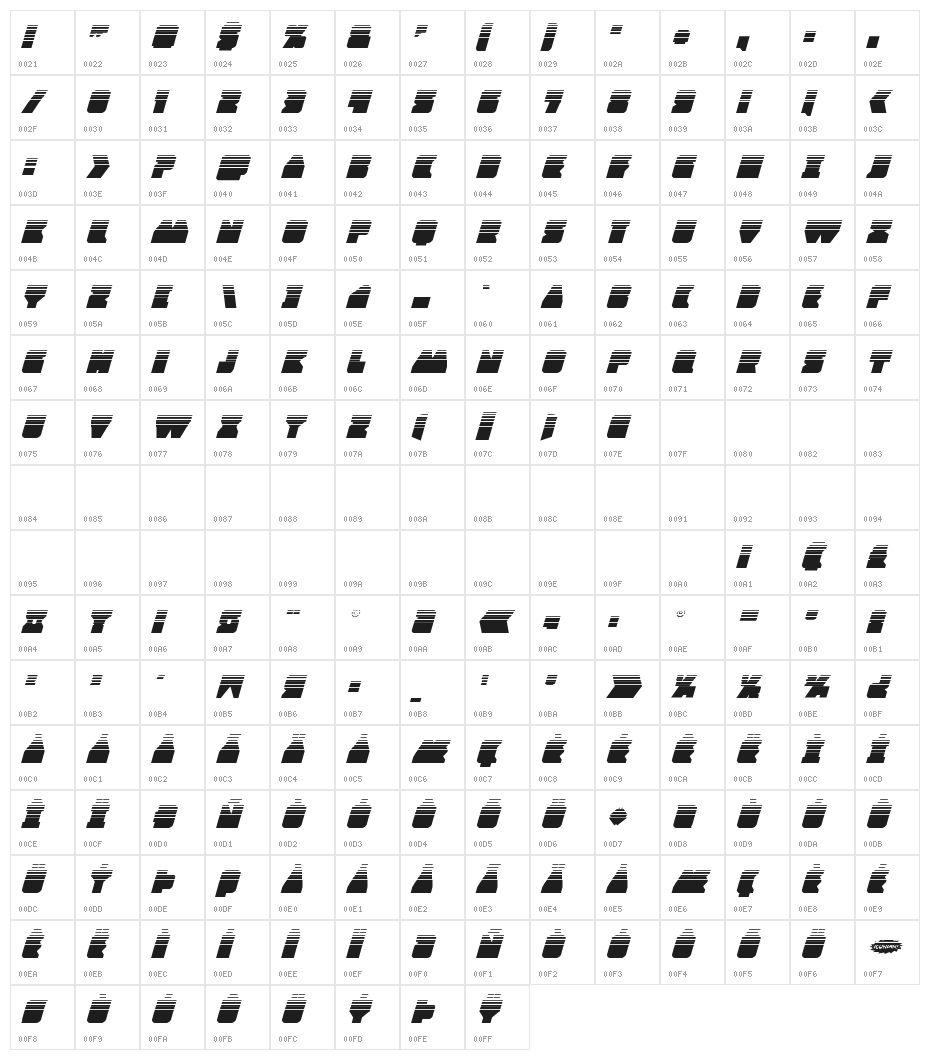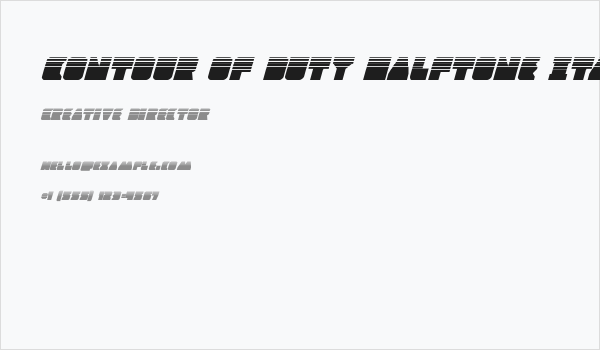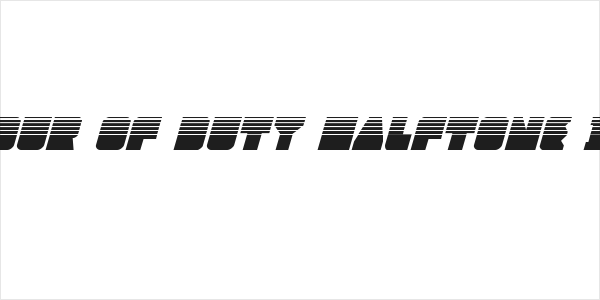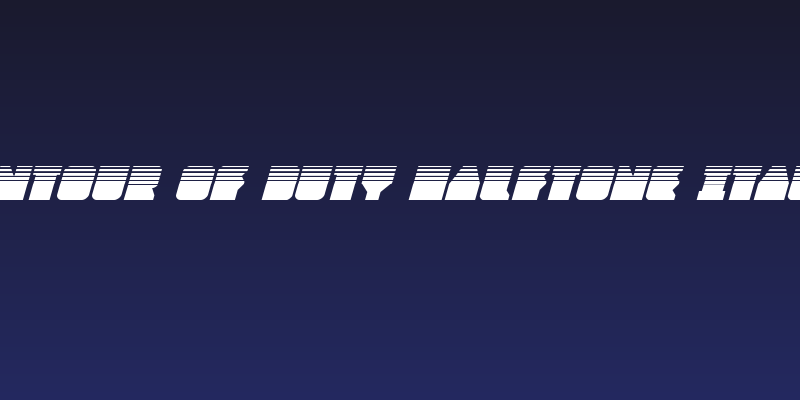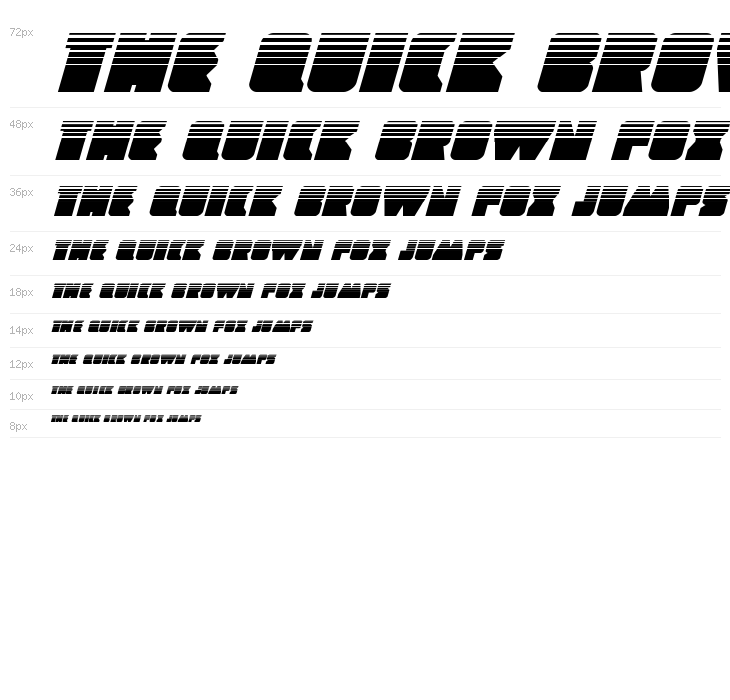
Contour of Duty Halftone Italic Font
Contour of Duty Halftone Italic Description
This font features a bold, italicized style with a distinct halftone effect, creating a dynamic and futuristic appearance. The characters are designed with a series of horizontal lines that give a sense of movement and depth. The uppercase and lowercase letters maintain a consistent width, while the numbers and special characters follow the same design principle, ensuring uniformity across all glyphs. The font's unique style makes it stand out, ideal for projects that require a modern and edgy look.
| Overall Style | Futuristic, Dynamic |
| Proposed Projects | Ideal for sci-fi themed designs, video game titles, posters, and branding that requires a modern, edgy look. |